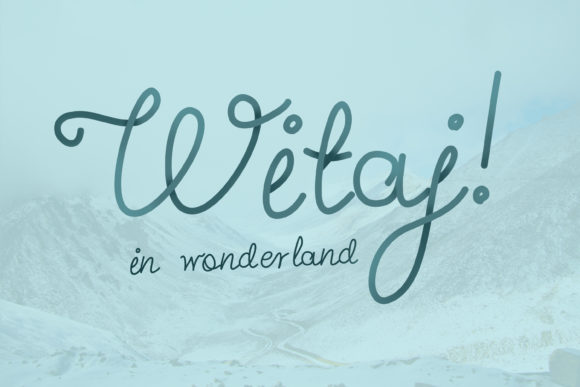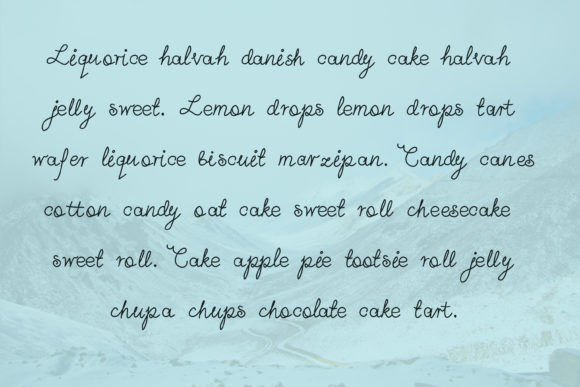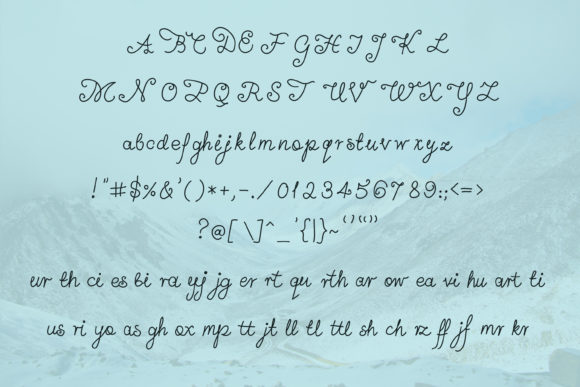
Witaj Font
About Witaj Font
Witaj simplifies elegance into one truly outstanding script font. It maintains its classy calligraphic influences while feeling contemporary and fresh. This versatility will appeal to a wide range of crafty ideas, from letterheads and titles, to stationery. This font is PUA encoded which means you can access all of the great glyphs with ease!